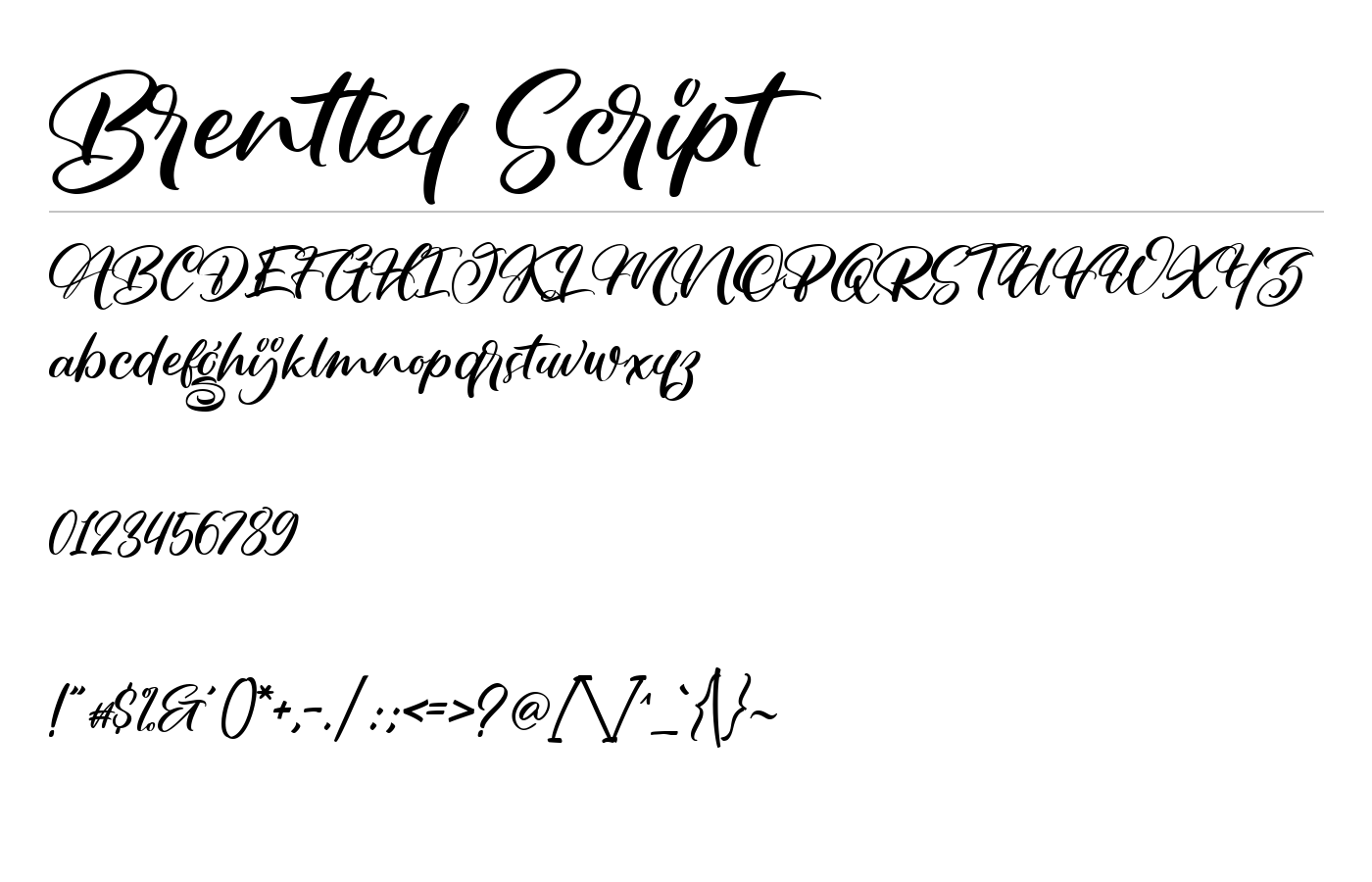
Brentley Script is an elegant, flowing script font with a lively, hand-drawn feel. Its smooth, moderately thick strokes and decorative swashes create a stylish and sophisticated look, making it ideal for fashion branding, invitations, logos, and any design needing a personal yet refined touch. The font’s balanced legibility and expressive character add charm and elegance without feeling overly formal.
Brentley Script Font
About Brentley Script Font